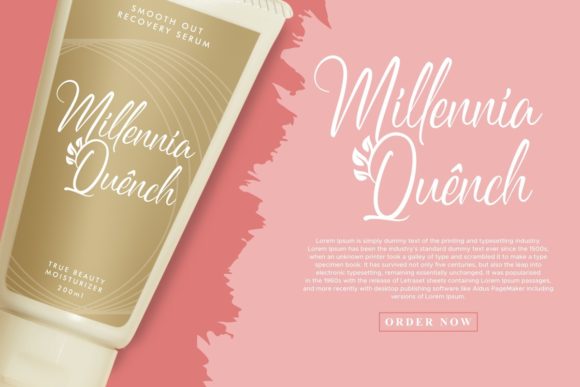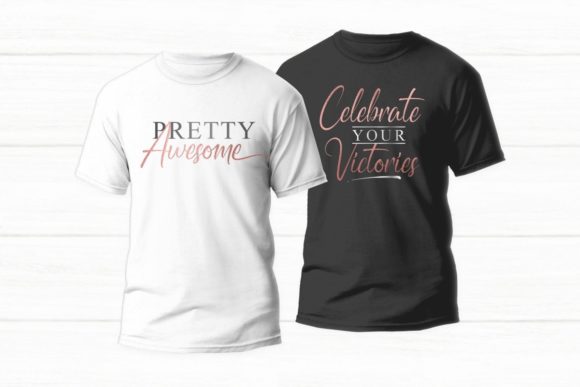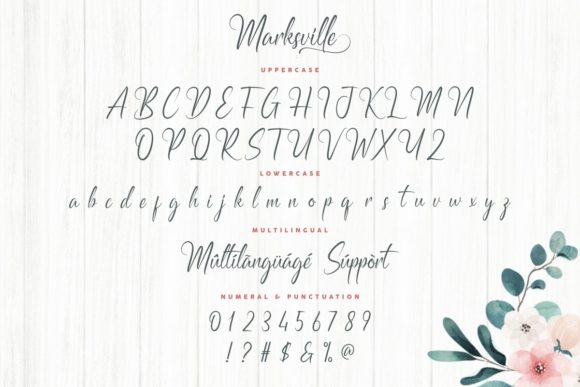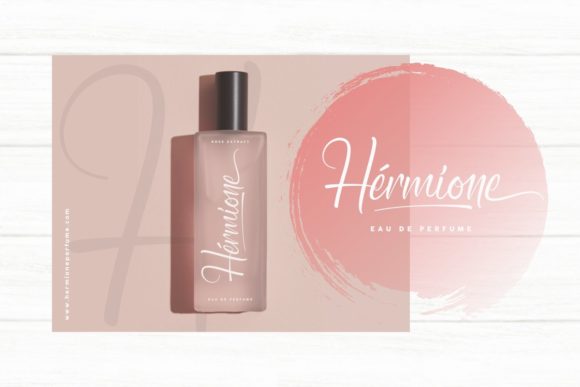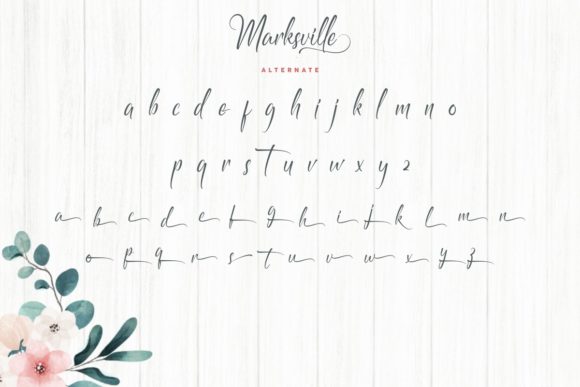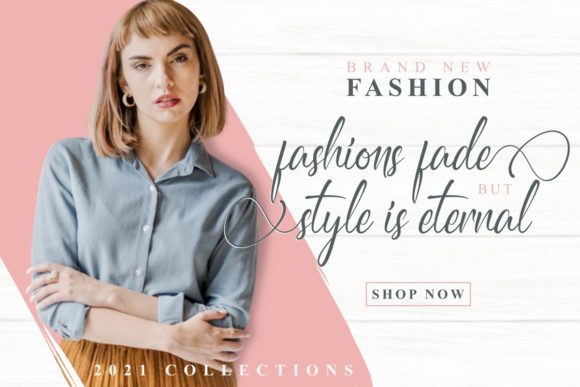
Introduction to Marksville Font
As you sit at your desk, surrounded by scraps of paper, pens, and a laptop, the creative juices start flowing. You’re working on a special project, a wedding invitation for a close friend, and you want it to be perfect. You browse through your favorite design resources, searching for the perfect font to give it that extra touch of elegance. And then, you stumble upon the Marksville Font – a charming and elegant script that instantly catches your eye.
Marksville Font is more than just a pretty face; it’s a valuable resource for designers who crave that handwritten touch in their creative projects. With its PUA encoding, you can easily access all the glyphs and swashes, making it a high-quality design resource for any project, from wedding invitations to business cards. And the best part? It’s available for a free download, making it an excellent choice for designers on a budget.
Key Features of Marksville Font
- High-quality design resource suitable for various creative projects, including digital art and graphic design.
- Supports a transparent background, allowing for seamless integration with other design elements.
- Designed with a high level of detail and precision, resulting in a crisp and clear font that is perfect for printing and digital use.
- Unique characteristics include a modern and sleek aesthetic, with clean lines and a minimalist approach that makes it easy to read and understand.
Honest Review: Marksville Font
I recently came across the Marksville Font and I have to say it’s a great addition to any design resource. This font is perfect for creating a clean and modern look for your projects.
- High-quality design: The Marksville Font has a professional and sophisticated feel to it.
- Transparent background: The font has a transparent background, making it easy to use with any background image or color.
- Wide range of applications: The Marksville Font is suitable for various design projects, including business cards, logos, and even web design.
While the Marksville Font is a great choice for many design projects, it may not be suitable for all types of creative projects. For example, it may not be the best choice for projects that require a more playful or casual tone.
Overall, I’m really impressed with the Marksville Font. It’s a great addition to any design resource and can help elevate your creative projects to the next level.
Tips for Getting the Most Out of Marksville Font
To get the most out of the Marksville Font, experiment with different font sizes and colors. You can also use the font in combination with other design elements to create a unique and eye-catching design.
Common Use Cases for Marksville Font
The Marksville Font is perfect for a variety of creative projects, including logos, social media graphics, presentations, and documents. Its high-quality design and free download make it a great design resource for any project.
Alternatives to Marksville Font
Alex Brush is a high-quality, hand-drawn font that is perfect for creative projects requiring a touch of elegance and sophistication. It features a transparent background, making it ideal for use on various design resources. When to use: Wedding invitations, fine art prints, or any design where a subtle, refined look is desired. Compared to Marksville Font, Alex Brush has a more refined and delicate appearance.